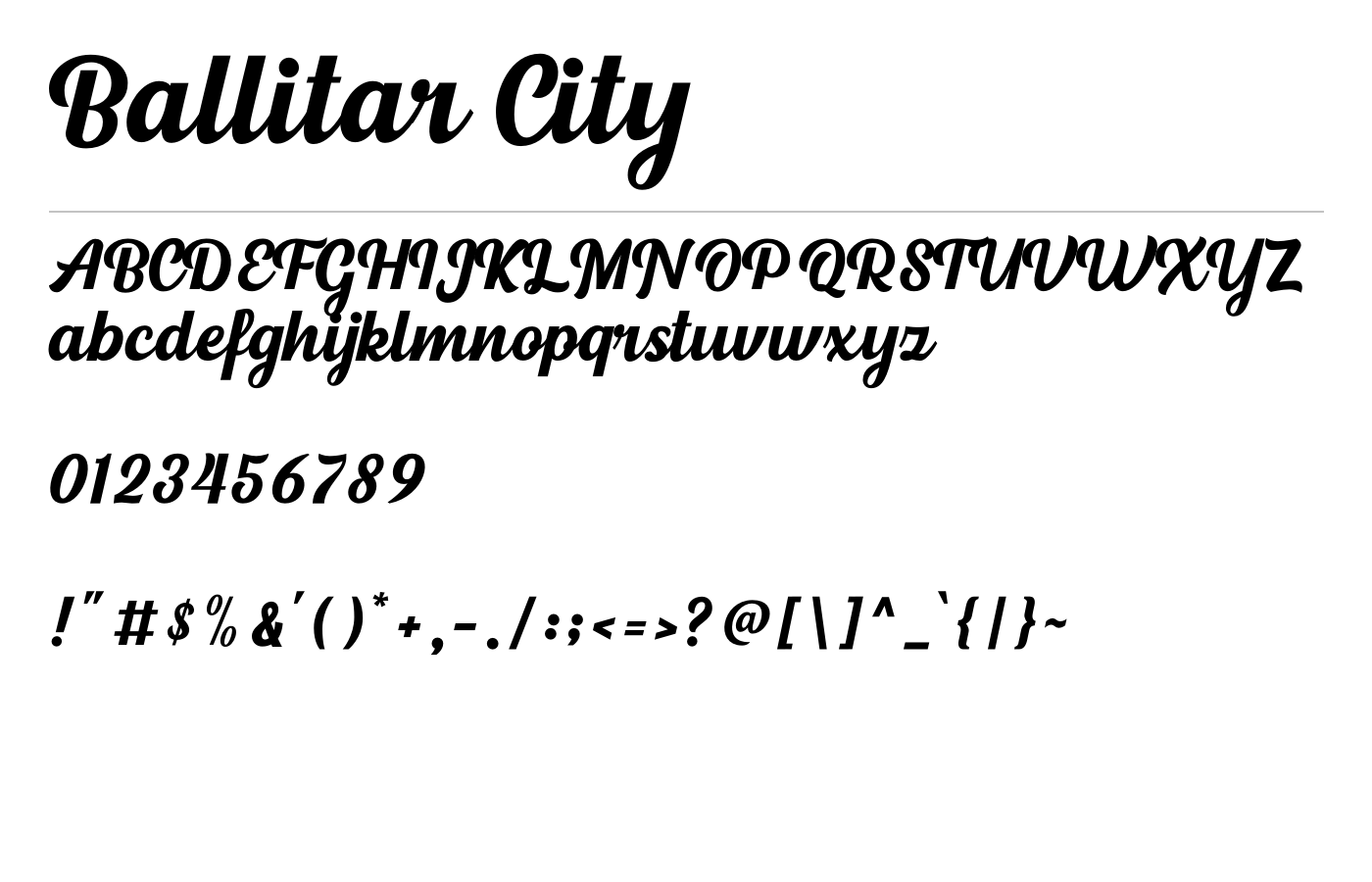
Ballitar City is a bold, script-style font with smooth, flowing curves that give it a friendly and energetic personality. Its medium contrast strokes and rounded terminals create a modern yet approachable feel, making it perfect for branding, headlines, and display use where a lively, stylish impression is desired. This font shines in fashion, packaging, and editorial designs that seek to combine elegance with a contemporary urban vibe.
Ballitar City Font